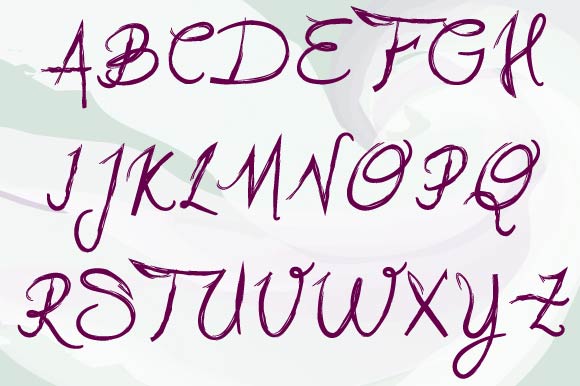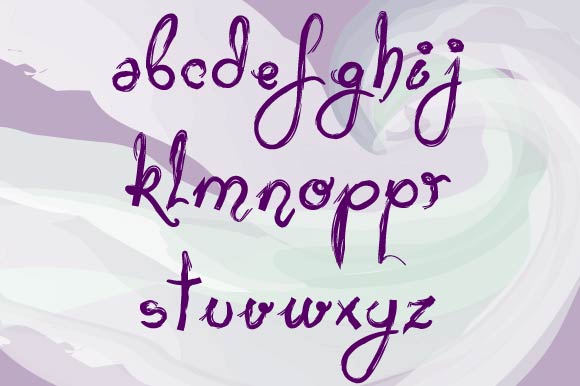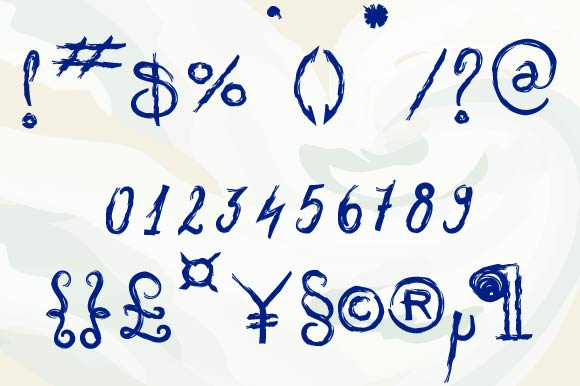
HomeScript FontsHypnos Font Script Fonts Hypnos Font FacebookXPinterestWhatsApp Hypnos Font Poster 2 Hypnos Font Poster 3 Hypnos Font Poster 4 About Hypnos Font Hypnos, a watercolor-style handwritten font. DOWNLOAD ON CREATIVE FABRICAThis font is sold and delivered by Creative Fabrica. Font Canyon may earn a commission if you buy through this link. People also explored Kastangel Font Vintage Gothic Font Spring Drops Font The Sweetest Thing Font Shelikes Font Monsttera Font Sweet Cream Font Pasitive Font Brancaster Font 306 0 TagsHypnos Font Previous articleUnicorns Are Awesome FontNext articleThe Flashter Font LEAVE A REPLY Cancel reply Comment: Please enter your comment! Name:* Please enter your name here Email:* You have entered an incorrect email address! Please enter your email address here Website: Save my name, email, and website in this browser for the next time I comment. Personal Use Free Lovely Girl Personal Use Free Read more about this font Scoothlane Personal Use Free Read more about this font Nulshock Bold Personal Use Free Read more about this font Lightning Script Personal Use Free Read more about this font BLOG To increase your work productivity, choose the most readable fonts. In today's fast-paced work environment, where digital communication and information consumption are integral to our daily routines, the choice of fonts can significantly impact... Exploring Font Trends Free vs Paid Fonts: Why Investing in Premium Fonts Is Worth It Elegant Wedding Invitation Fonts – Handwritten & Script Fonts